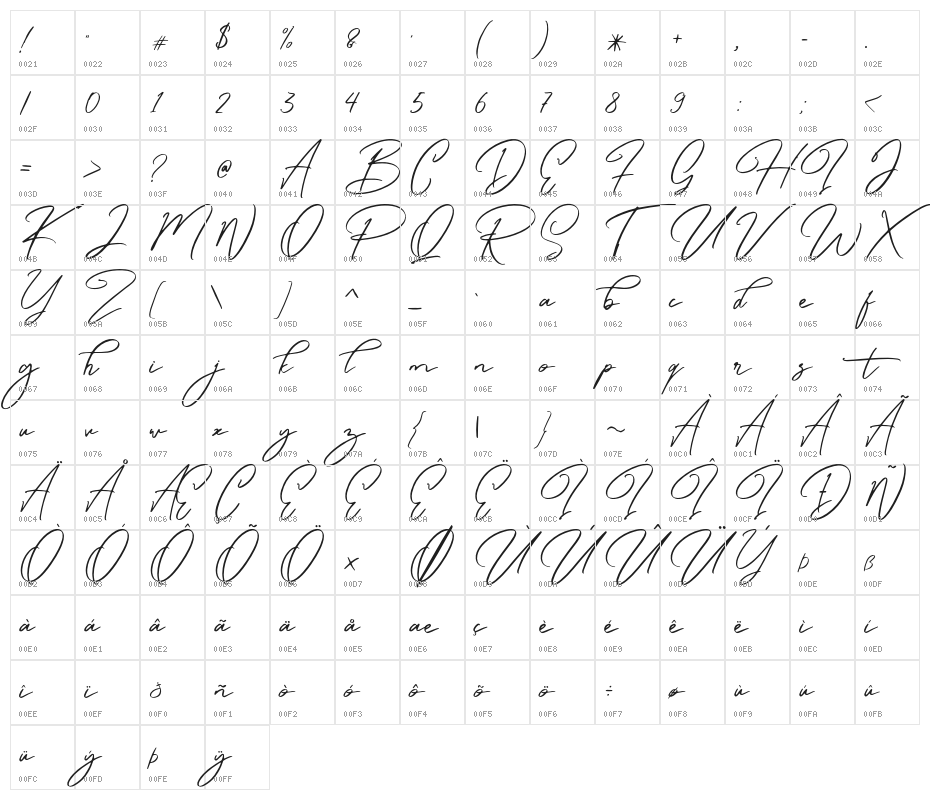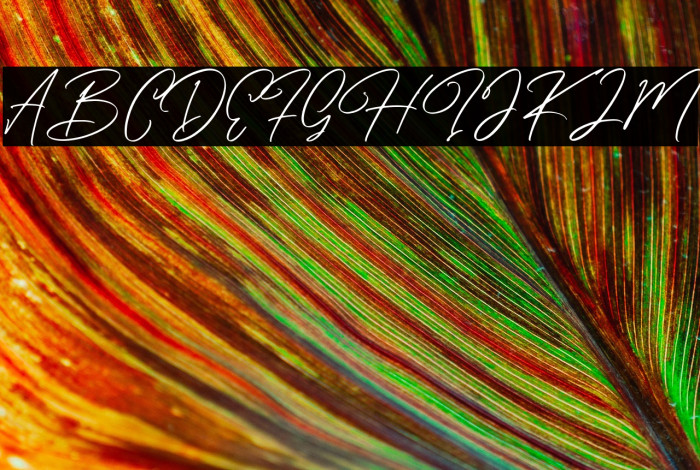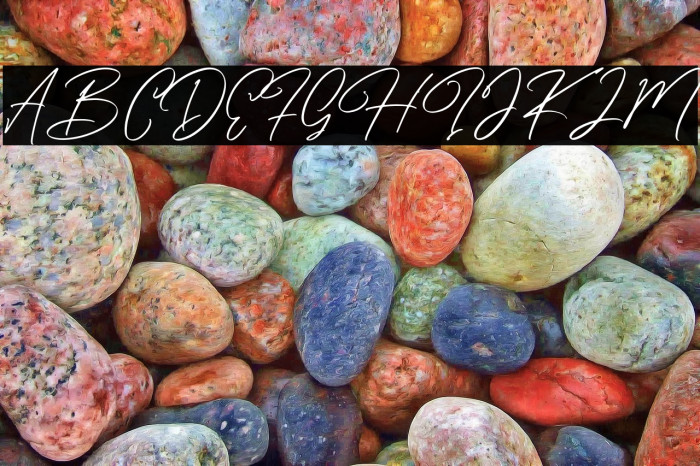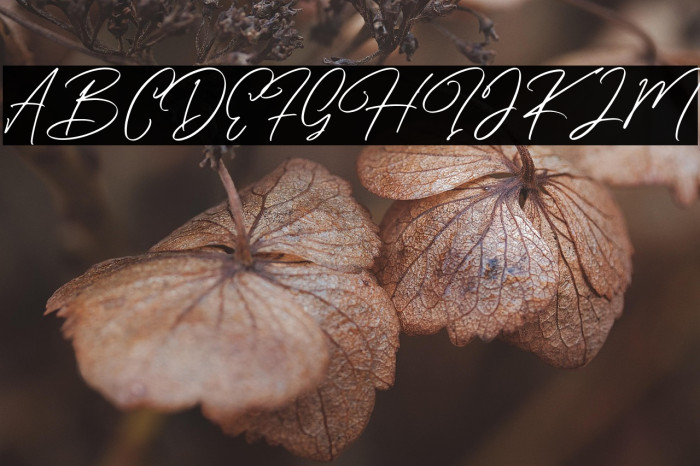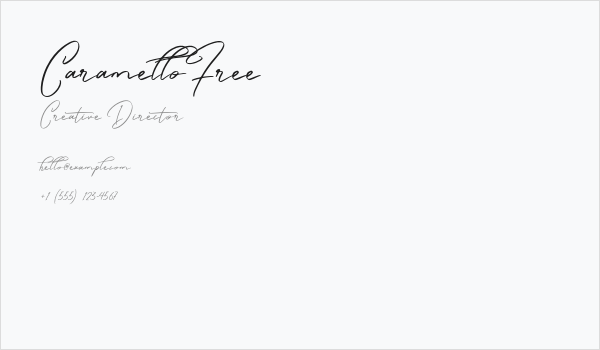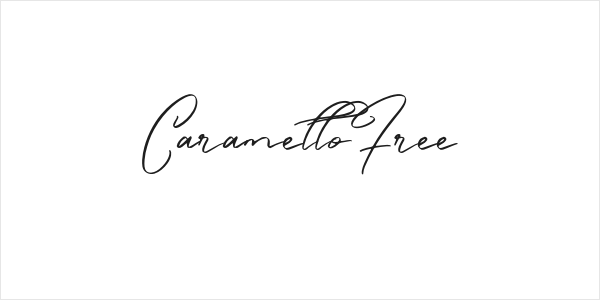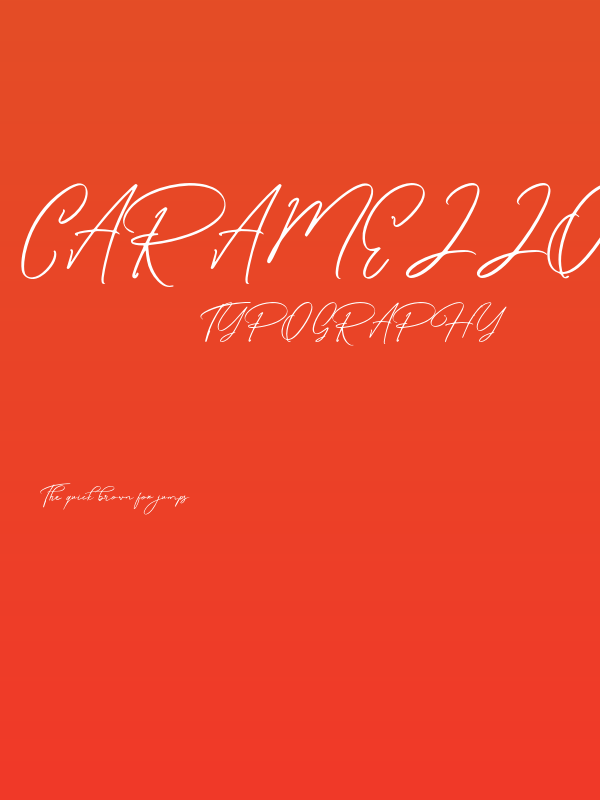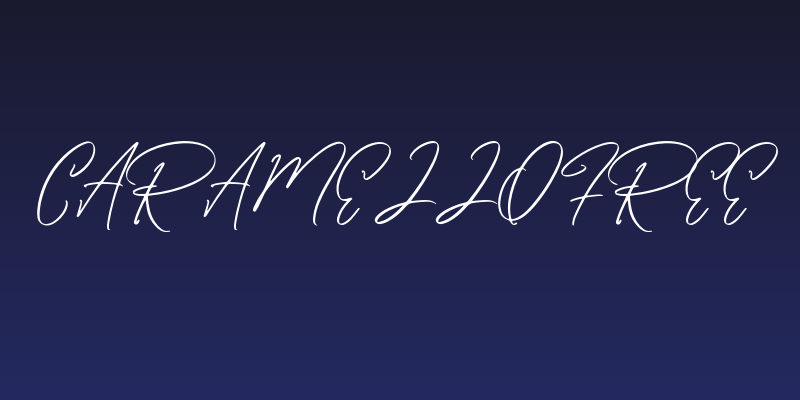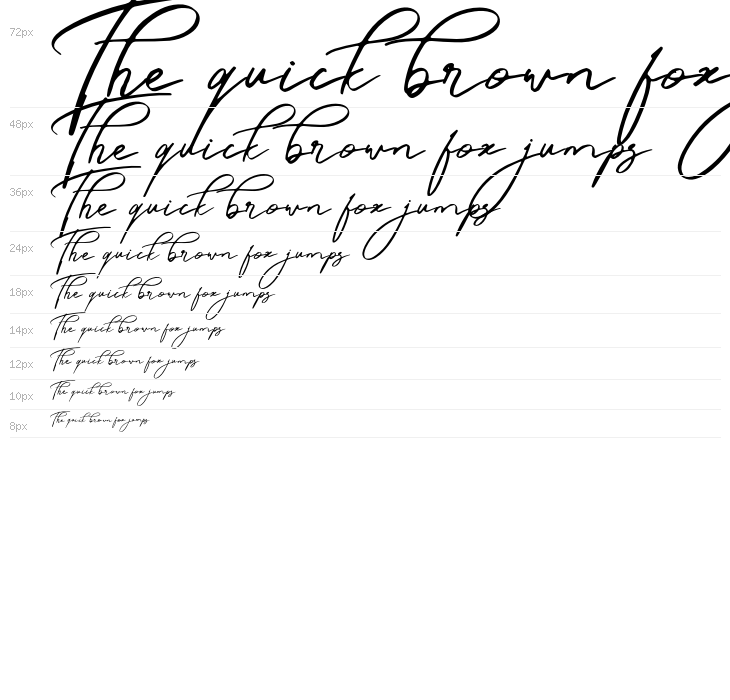
CaramelloFree Font
CaramelloFree Description
This font features an elegant and flowing script style, characterized by its smooth, cursive strokes and a sense of fluidity. The uppercase letters are tall and slender, with graceful loops and swashes that add a touch of sophistication. The lowercase letters maintain a consistent flow, with some characters extending below the baseline, enhancing its handwritten appeal. Numbers and special characters are designed to match the overall aesthetic, making them suitable for decorative purposes. The font's intricate design and attention to detail make it ideal for projects that require a personal and artistic touch.